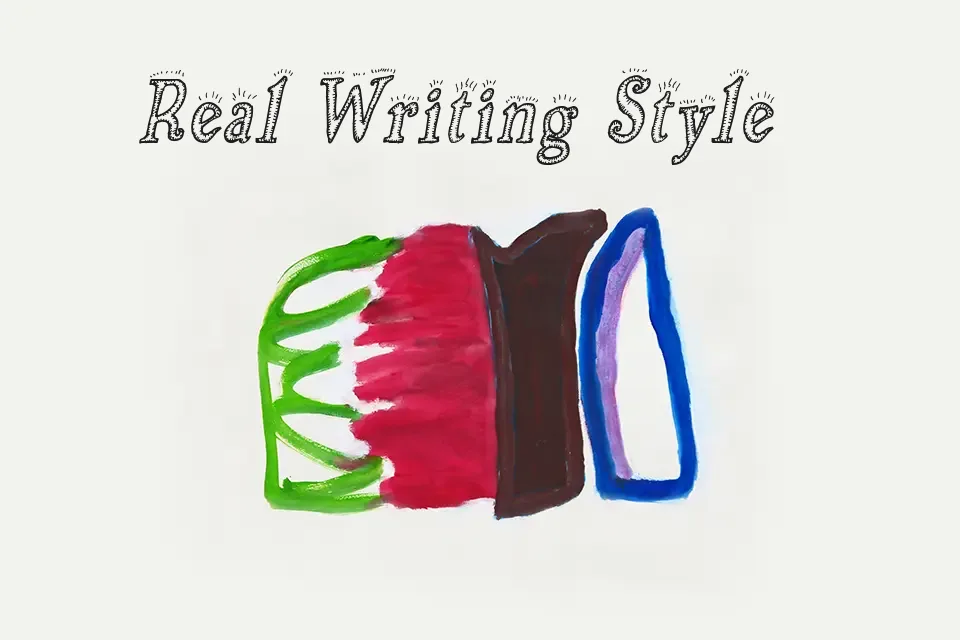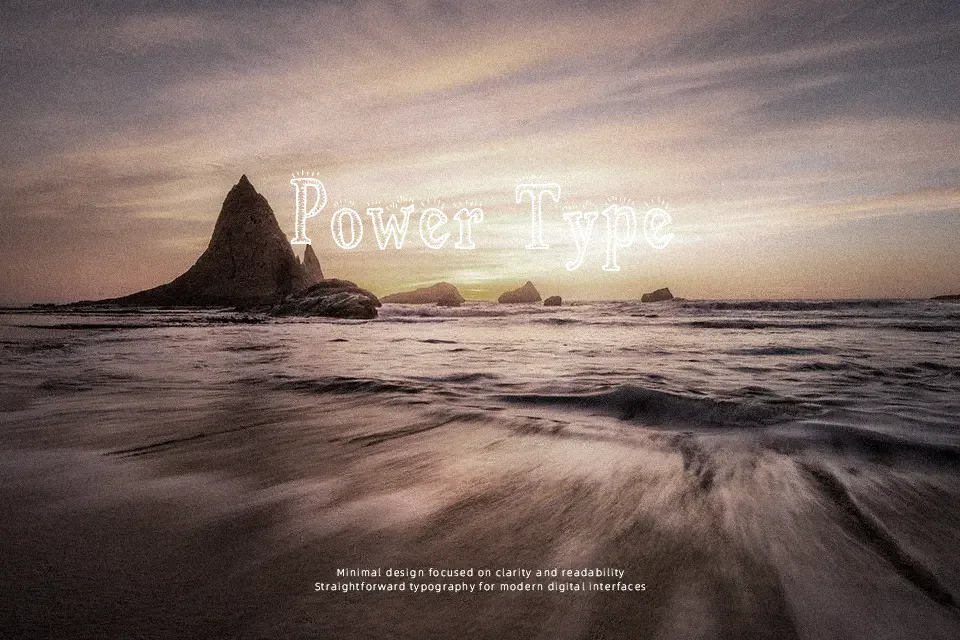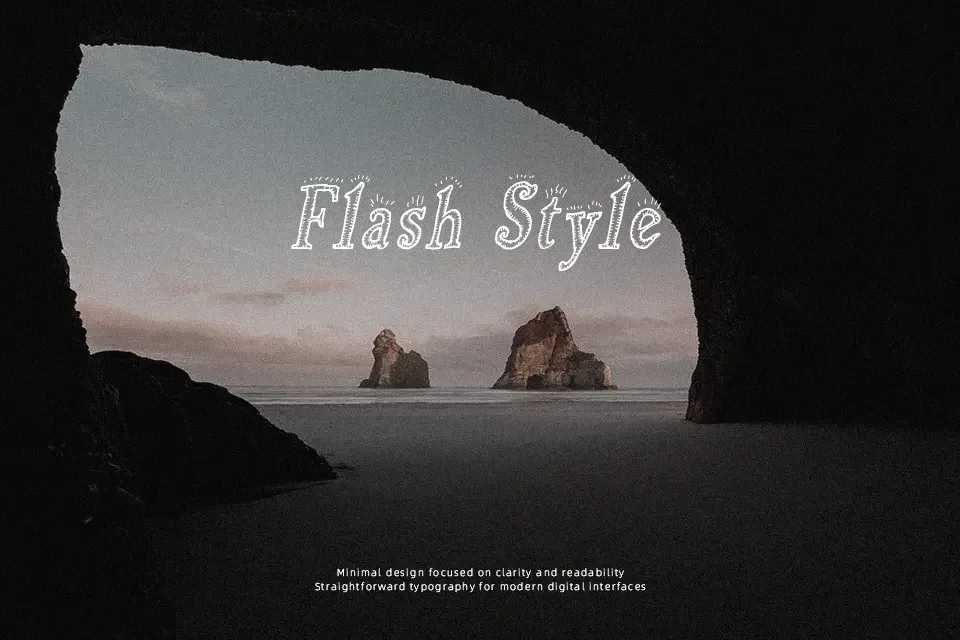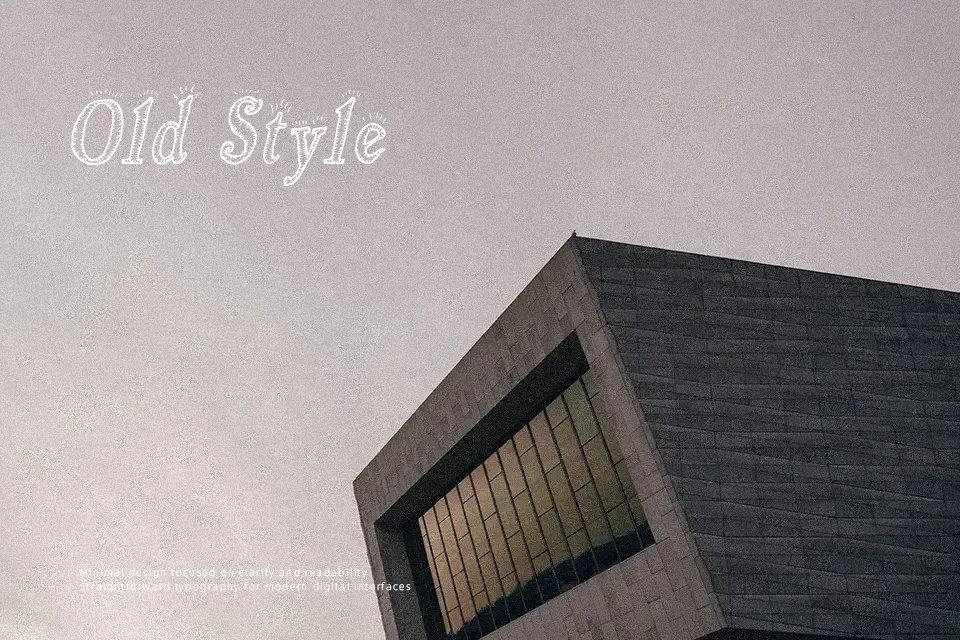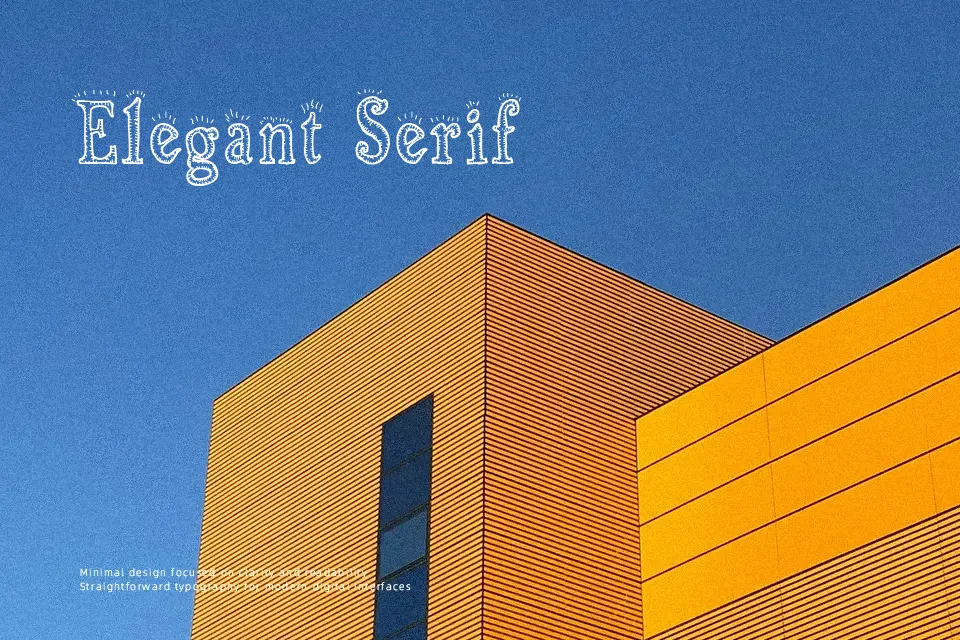
Biscuit Made Font
Designed by Galdino Otten Fonts
Designed by Galdino Otten, Biscuit Made embraces the raw appeal of hand-drawn artistry. Its sketchy letterforms feature open outlines filled with a hatched, dotted pattern, resembling words hastily penciled into a notebook. The slightly uneven strokes give every character a lively, unpolished energy.
You can leverage this decorative font to inject fun into large-scale designs like children’s book covers, vibrant posters, and casual packaging. Because of its highly textured internal structure, legibility drops significantly at smaller scales. The typeface is strictly built for bold display purposes, rendering it completely unsuited for dense body text or formal corporate branding.
– Playful children’s book covers
– Vibrant event posters
– Casual snack packaging
– Dense body text and long paragraphs
– Formal corporate identities
– Clean, minimalist digital interfaces
Perfect for headline, kids, and packaging, with a creative and cartoon style.